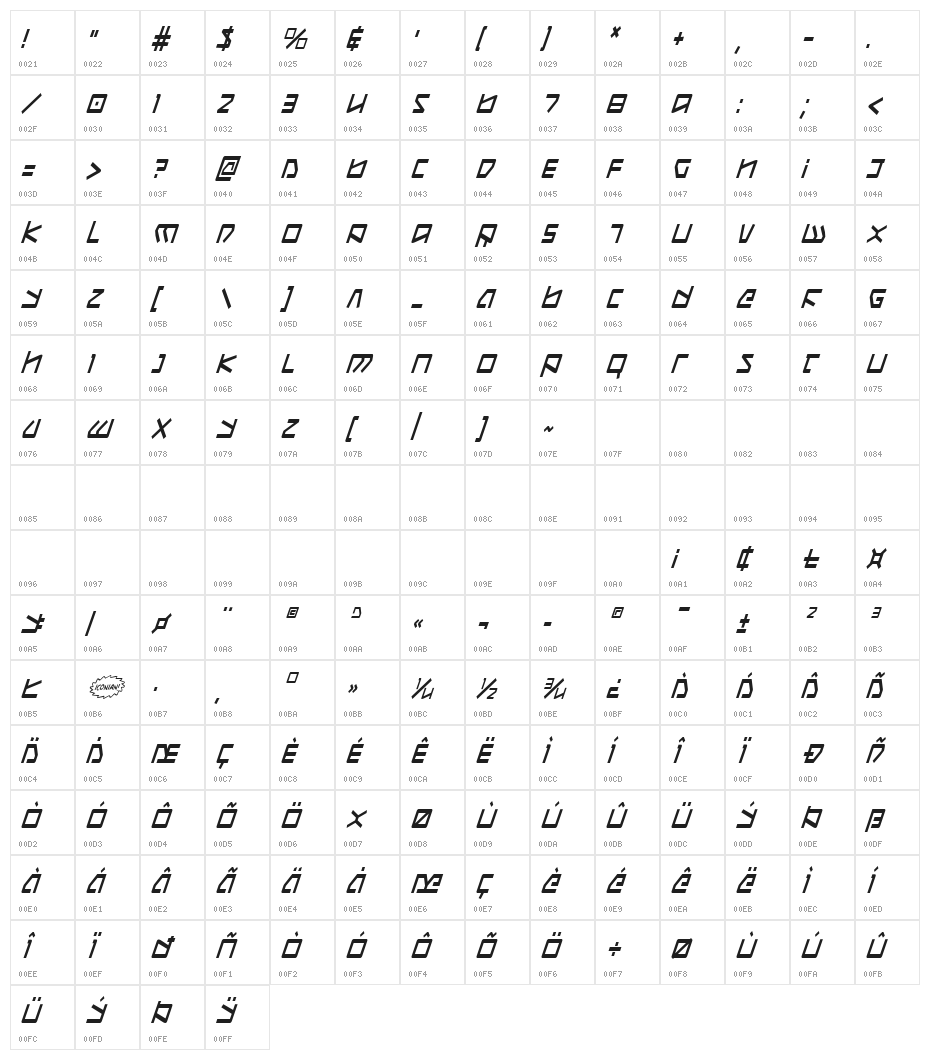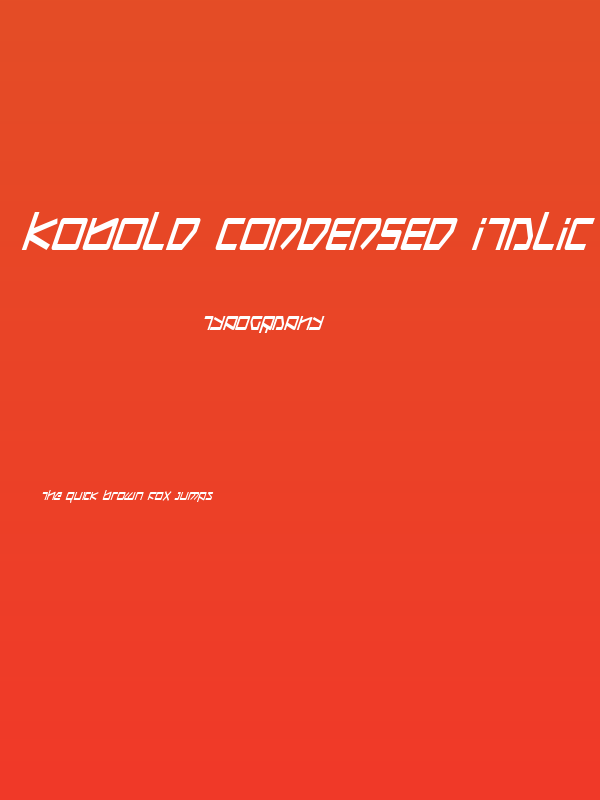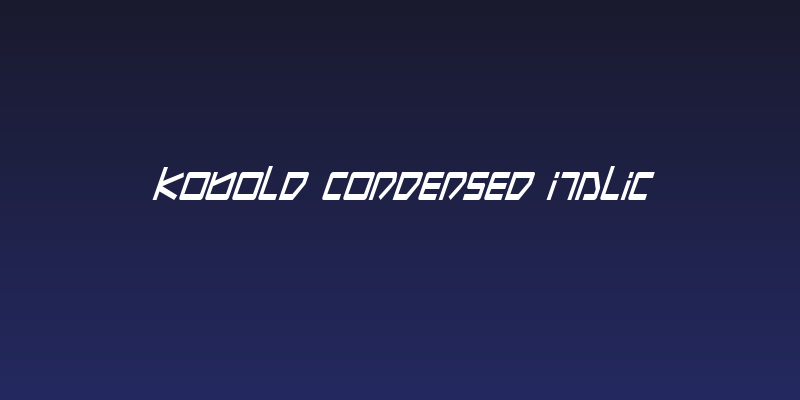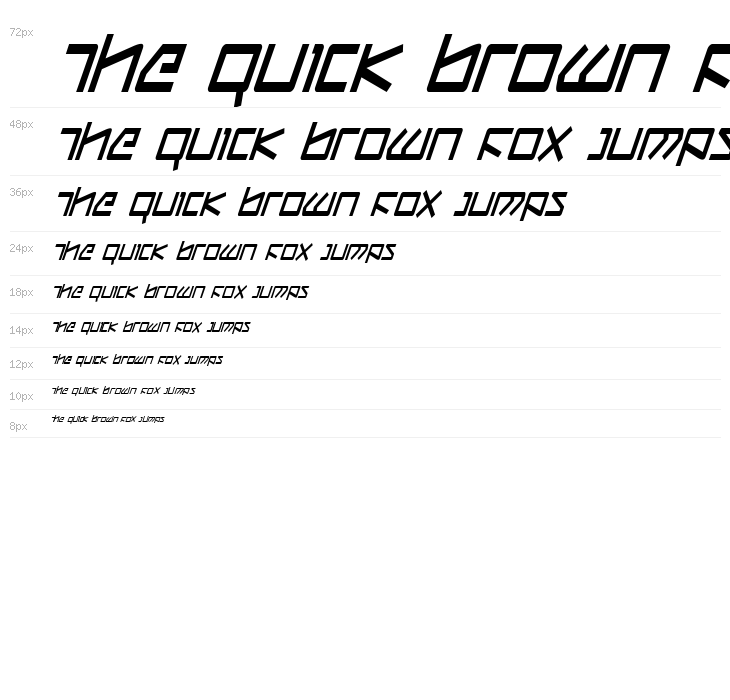
Kobold Condensed Italic Font
Kobold Condensed Italic Description
This font features a dynamic and angular design, characterized by its condensed and italicized form. The letters are sharply defined with a futuristic and geometric aesthetic, making it stand out with its unique slanted style. The uppercase and lowercase letters maintain a consistent angular theme, while the numerals and special characters follow suit, ensuring a cohesive look throughout. The font's condensed nature allows for efficient use of space, making it ideal for projects where space is a premium. Its bold strokes and sharp angles give it a strong presence, suitable for modern and edgy designs.
| Proposed Projects | Ideal for sci-fi themed designs, modern branding, edgy posters, and innovative product packaging. |